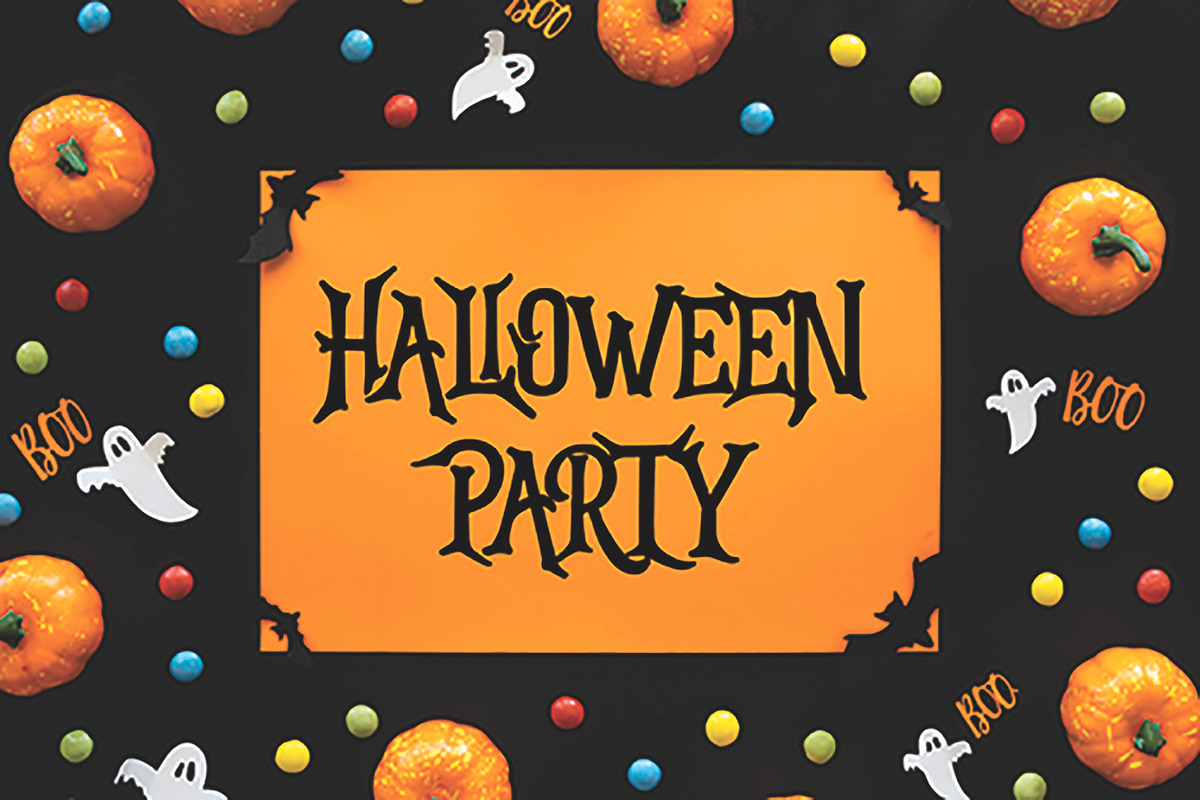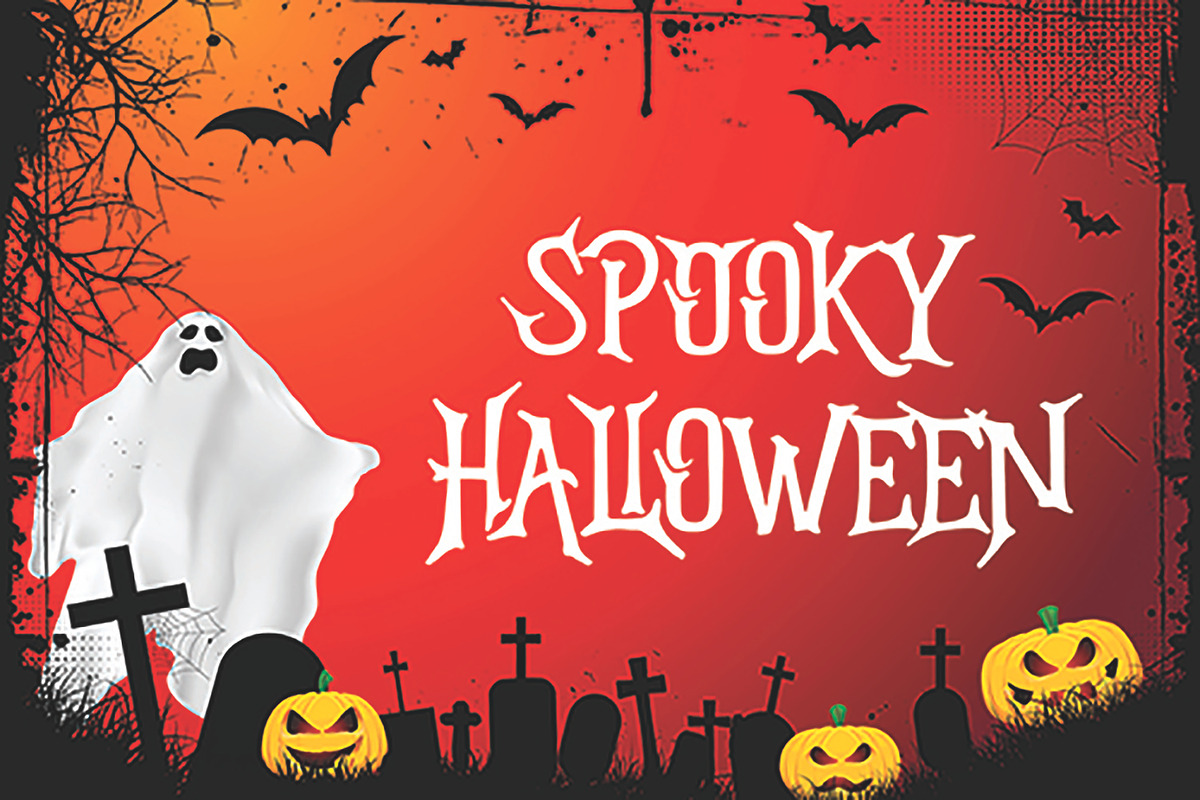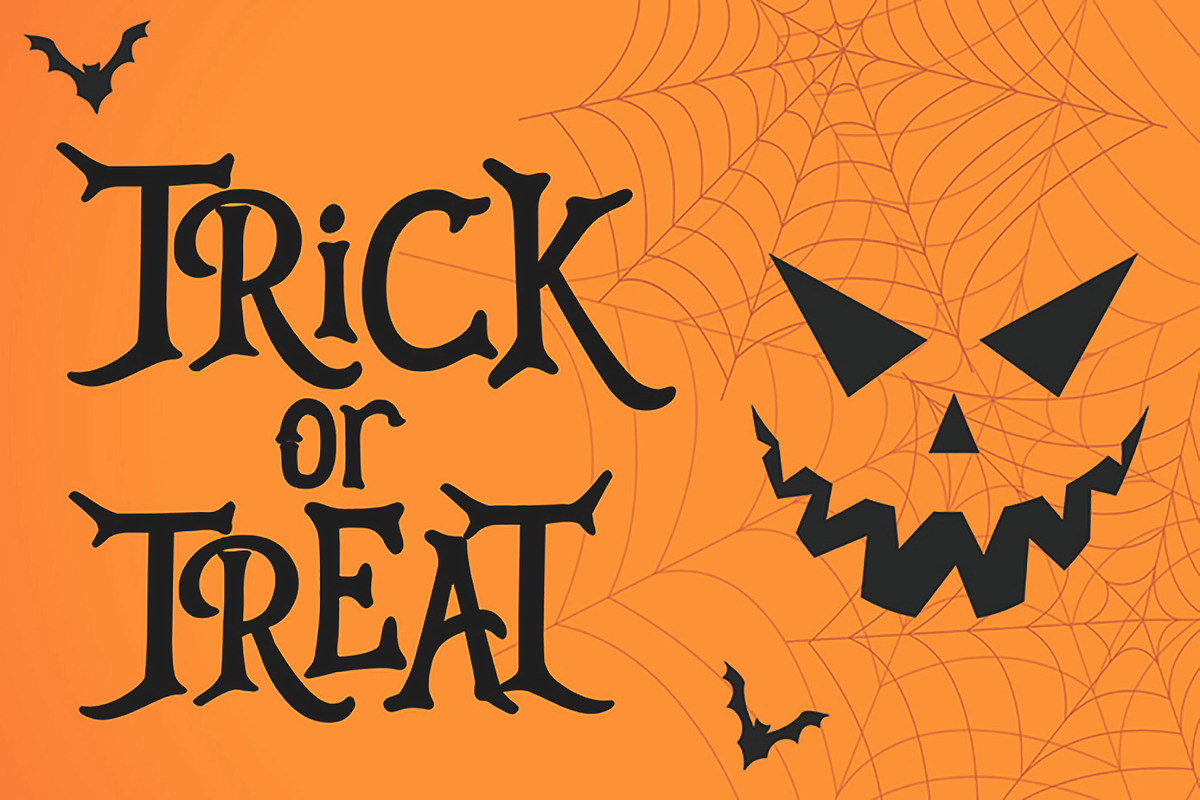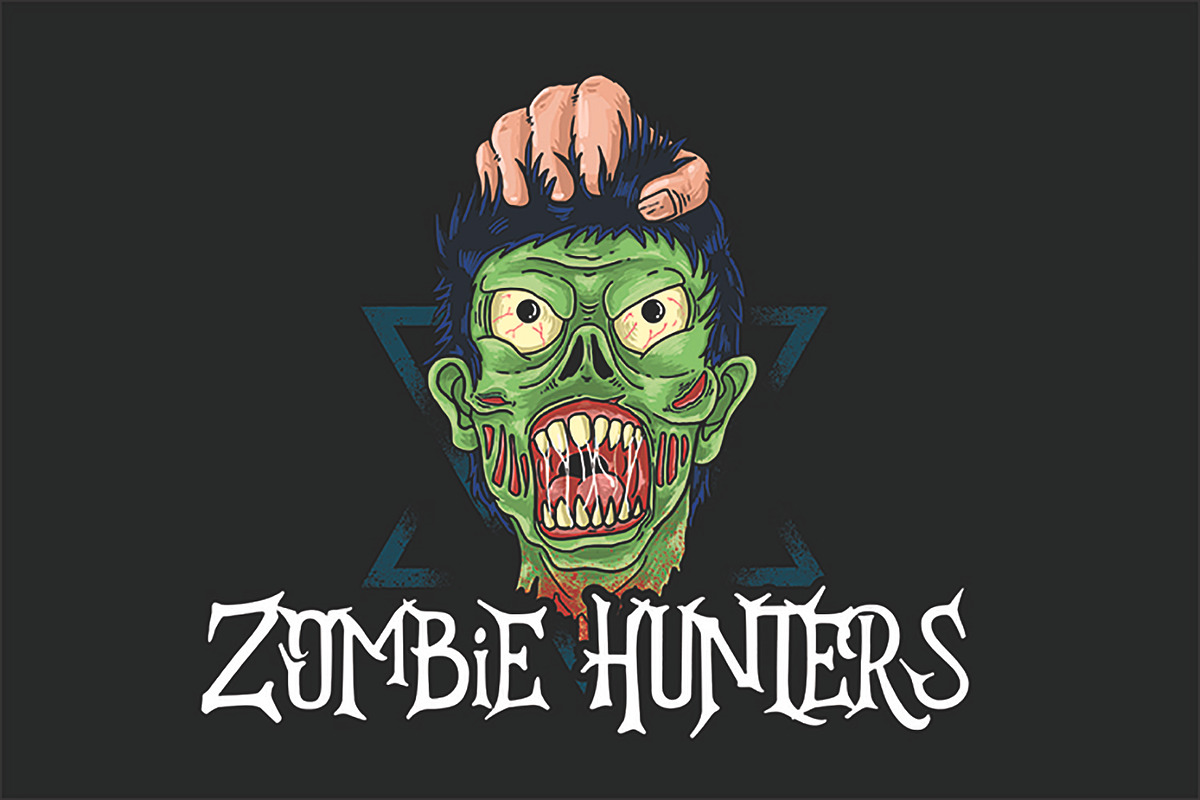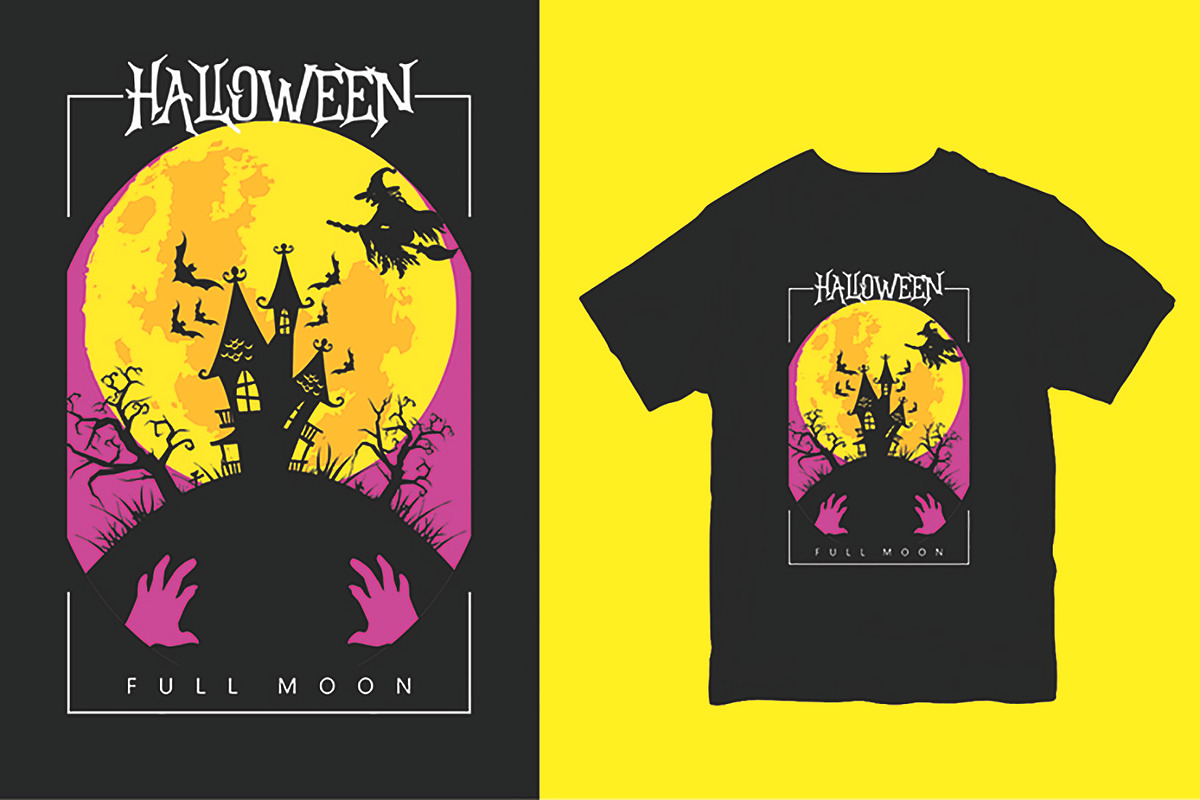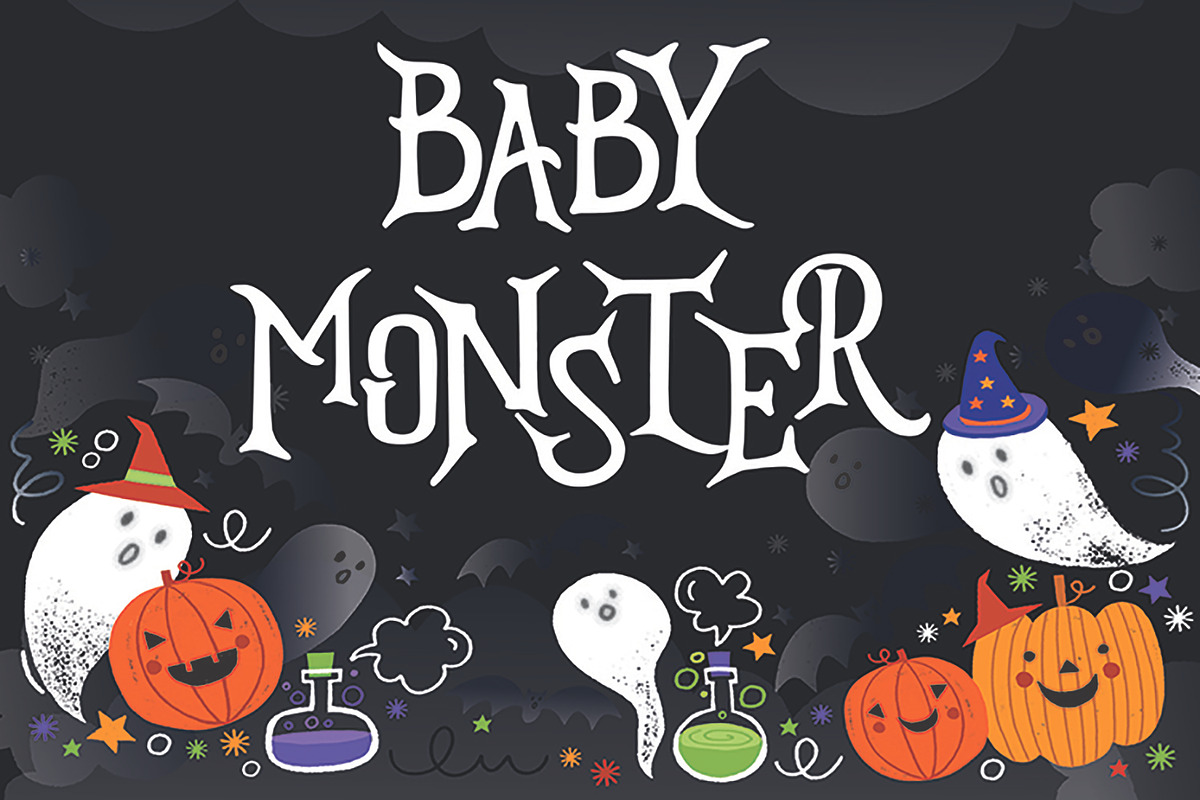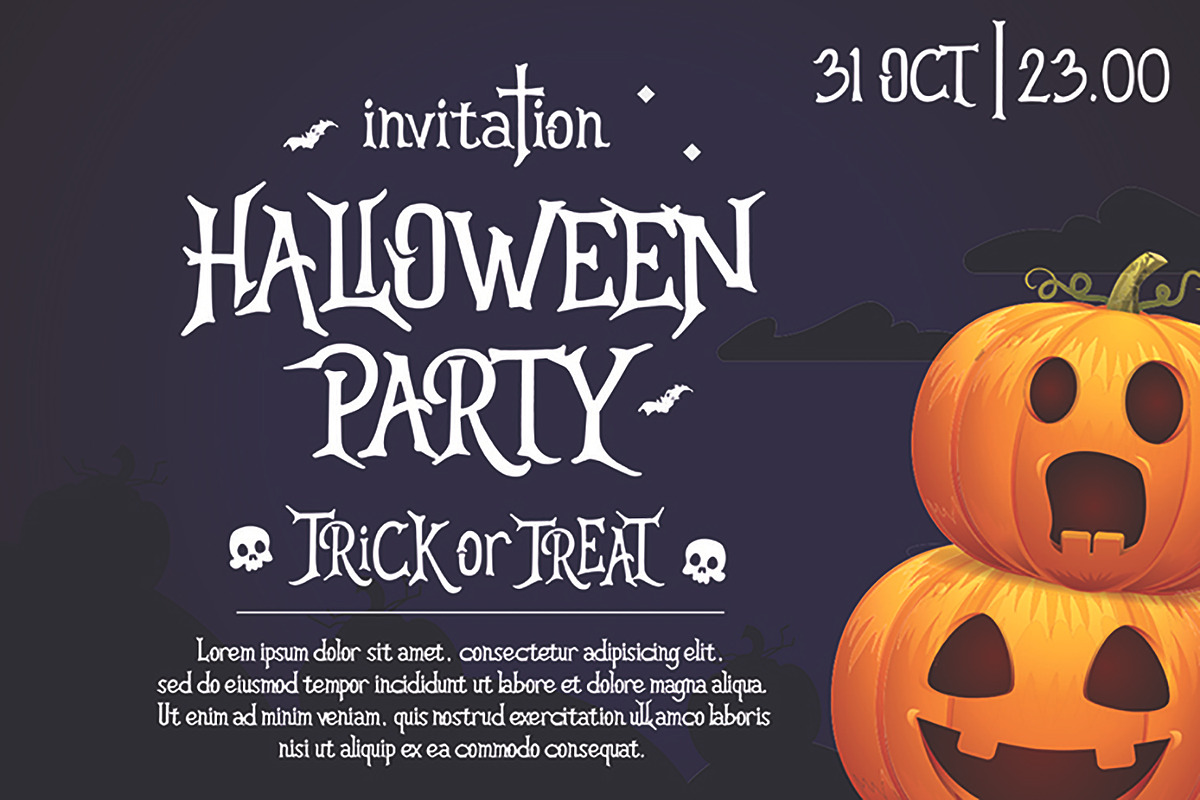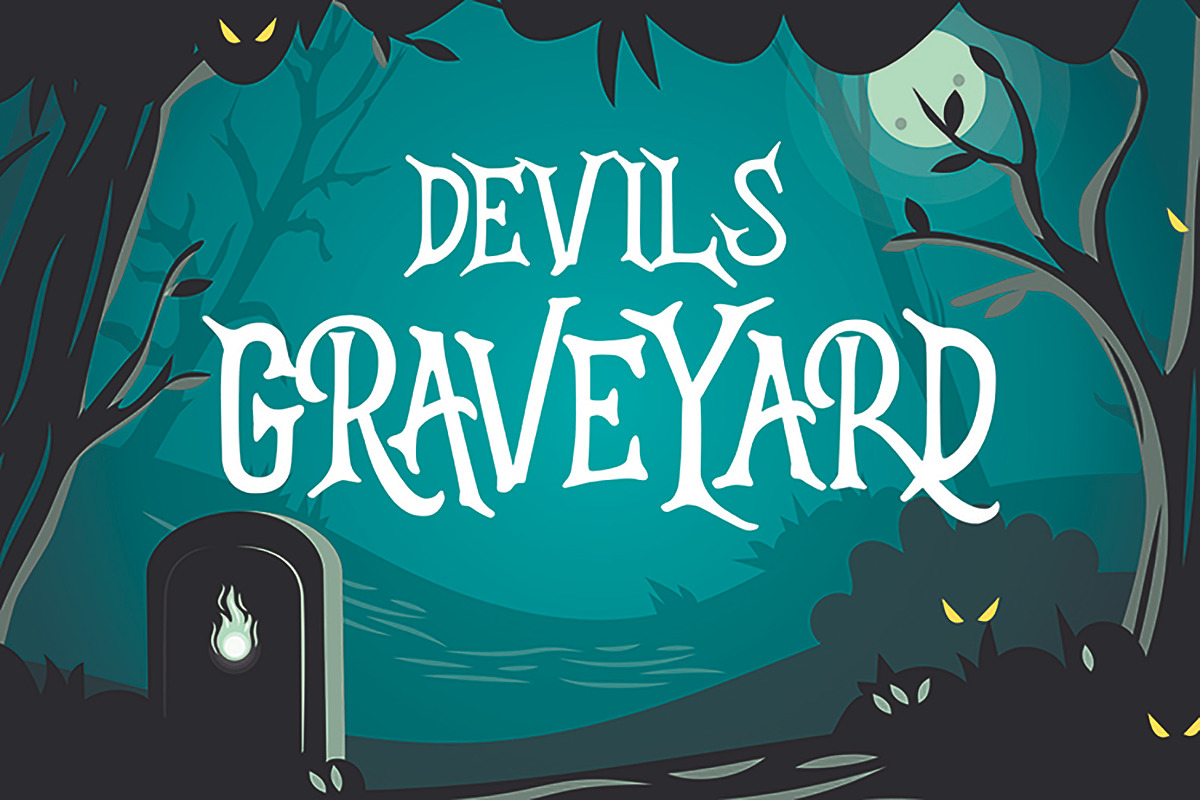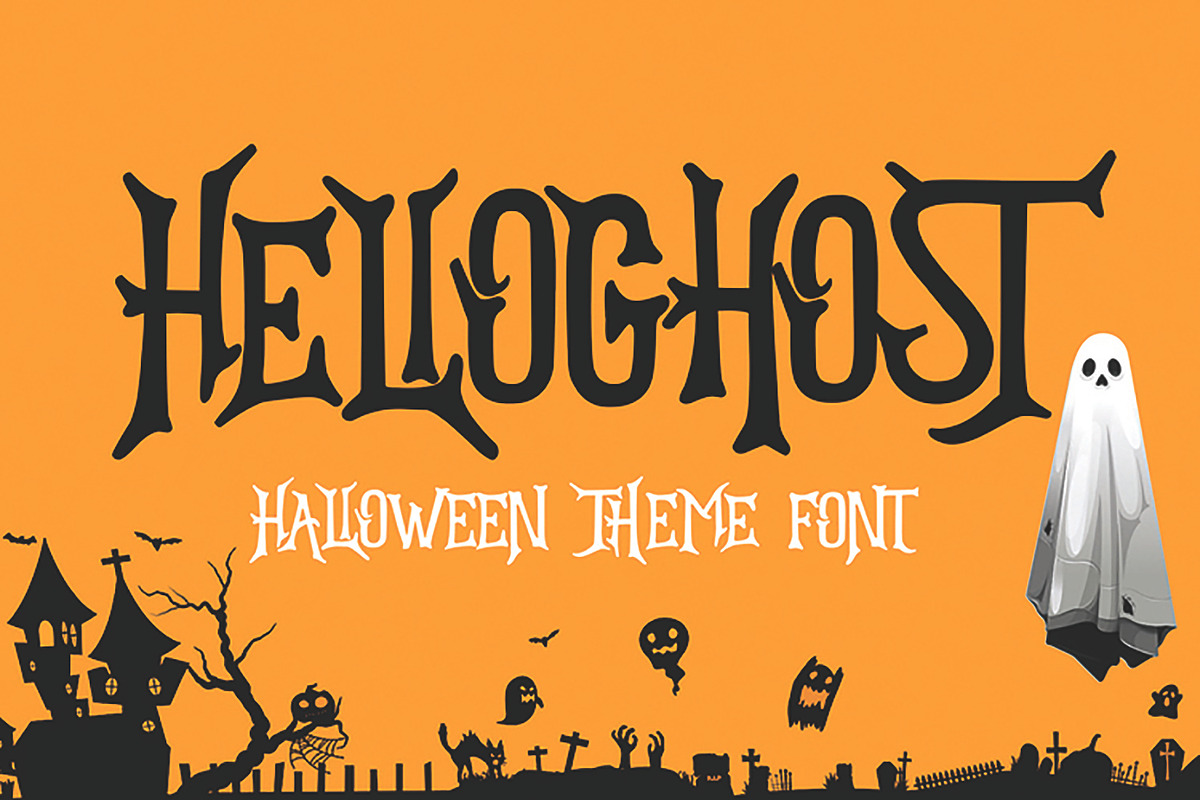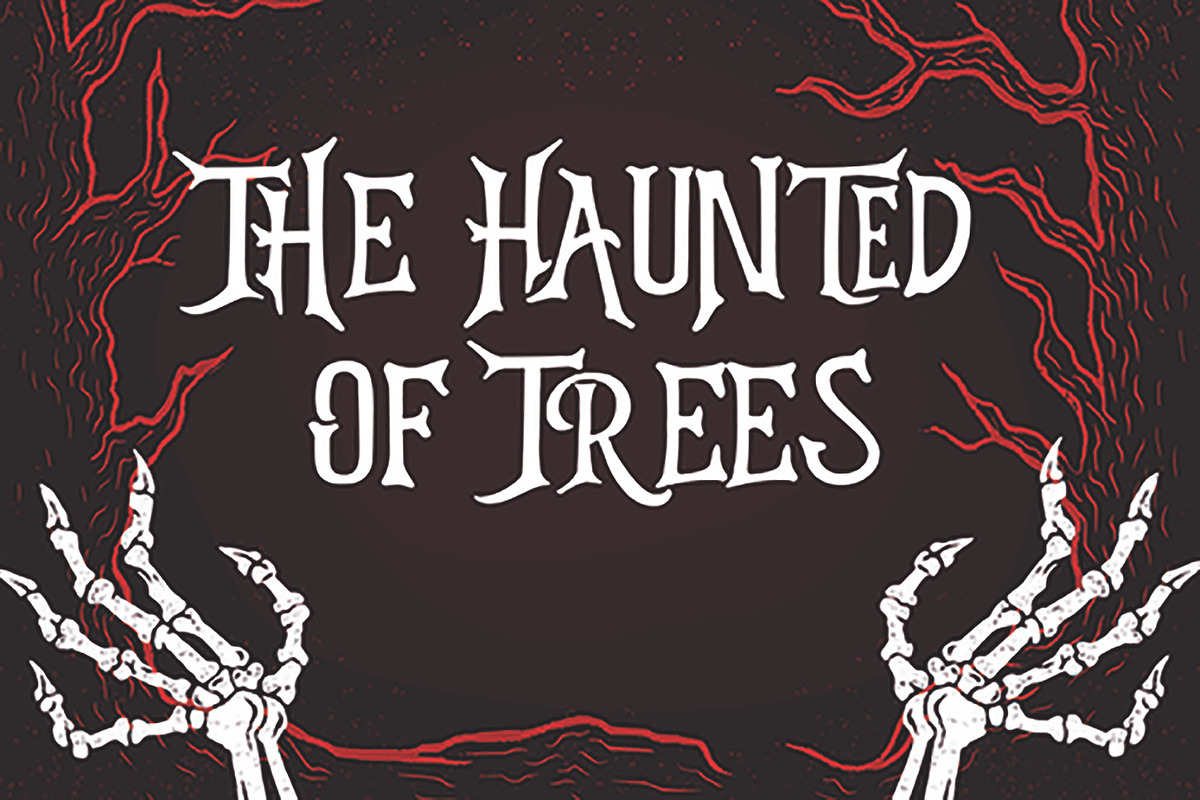
HELLOGHOST
HELLOGHOST – Helloween Theme Font is an incredibly unique, spooky, fun and scary display font. Add this font to your creative Halloween-themed ideas and notice how it will make them stand out!